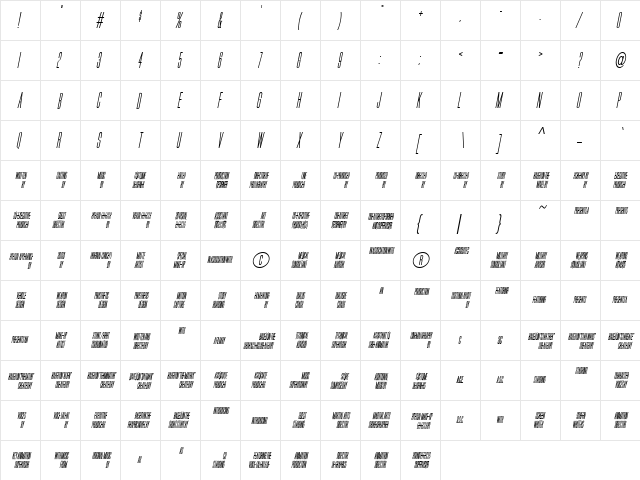
Top Billing Italic
Design Context for Top Billing Typeface
Top Billing offers clean, dependable letterforms without strong stylistic allegiance, making it a practical choice for designers who need flexibility. The slanted form adds forward momentum and visual energy.
Pro Tip: Try Top Billing for annotation and caption copy alongside an upright companion — the contrast in angle creates a dynamic but ordered typographic system.